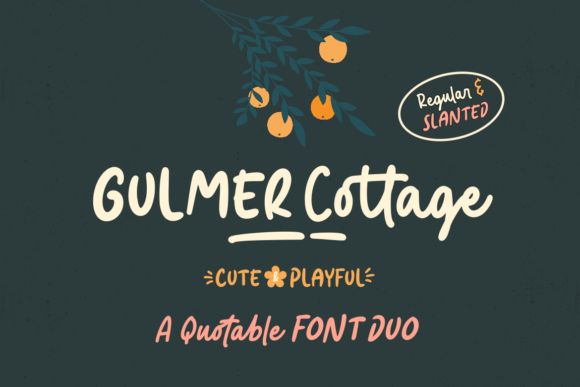
Gulmer Cottage Font Duo: Adding a Touch of Whimsy to Your Creations
In the world of typography, fonts play a crucial role in conveying the tone and personality of a design. If you’re looking for a font that embodies charm and whimsy, look no further than the Gulmer Cottage Font Duo. This delightful font duo is designed to infuse your creations with a touch of playfulness, making it perfect for a wide range of design projects.
The Gulmer Cottage Font Duo: A Versatile Pair
The Gulmer Cottage Font Duo consists of two complementary fonts: a regular version and a slanted version. This versatility makes it an excellent choice for designers who want to add some visual interest to their work. Whether you’re creating a whimsical logo, a playful poster, or a charming wedding invitation, this font duo has got you covered.
Script Version: Engaging Ligatures
The script version of the Gulmer Cottage Font Duo boasts engaging ligatures that add a touch of elegance to your designs. Ligatures are special characters that combine two or more letters into a single glyph, creating a smooth and flowing effect. This feature is particularly useful for creating beautiful, handwritten-style text that is perfect for invitations, quotes, and other designs where you want to add a personal touch.
Display Version: Playful Swashes
The display version of the Gulmer Cottage Font Duo takes it up a notch with playful swashes that add a dash of whimsy to your designs. Swashes are decorative flourishes that can be used to add visual interest to your text. In the case of the Gulmer Cottage Font Duo, the swashes are carefully crafted to add a playful touch to your designs, making it perfect for creating eye-catching headlines, titles, and other graphical elements.
Endless Creative Possibilities
One of the best things about the Gulmer Cottage Font Duo is the endless creative possibilities it offers. With its versatile design, you can use it for a wide range of projects, from:
- Wedding invitations and stationery
- Playful posters and flyers
- Whimsical logos and branding
- Charming packaging and labels
- Beautiful quotes and typography art
Why Choose the Gulmer Cottage Font Duo?
So, why should you choose the Gulmer Cottage Font Duo for your next design project? Here are just a few reasons:
- Unique and eye-catching design: The Gulmer Cottage Font Duo has a distinctive design that will set your creations apart from the rest.
- Versatile: With both a regular and slanted version, you can use this font duo for a wide range of projects.
- Easy to use: The font duo comes with a user-friendly design, making it easy to incorporate into your workflow.
- High-quality: The Gulmer Cottage Font Duo is crafted with attention to detail, ensuring a high-quality design that will impress your clients or audience.
Tips for Using the Gulmer Cottage Font Duo
To get the most out of the Gulmer Cottage Font Duo, here are some tips to keep in mind:
- Experiment with different combinations: Try pairing the regular and slanted versions of the font to create visual interest.
- Play with swashes and ligatures: Don’t be afraid to get creative with the swashes and ligatures to add a personal touch to your designs.
- Use it for headlines and titles: The display version of the font is perfect for creating eye-catching headlines and titles.
- Pair it with other fonts: Try pairing the Gulmer Cottage Font Duo with other fonts to create a unique and interesting contrast.
In conclusion, the Gulmer Cottage Font Duo is a versatile and charming font duo that is perfect for adding a touch of whimsy to your designs. With its engaging ligatures, playful swashes, and high-quality design, it’s an excellent choice for a wide range of projects. Whether you’re a designer, artist, or DIY enthusiast, this font duo is sure to inspire your creativity and help you create stunning designs that will leave a lasting impression.
Q: Is the Gulmer Cottage Font Duo suitable for body text?
A: While the Gulmer Cottage Font Duo is primarily designed for display purposes, it can be used for body text in certain contexts. However, it’s recommended to use a clear and legible font for body text to ensure readability.